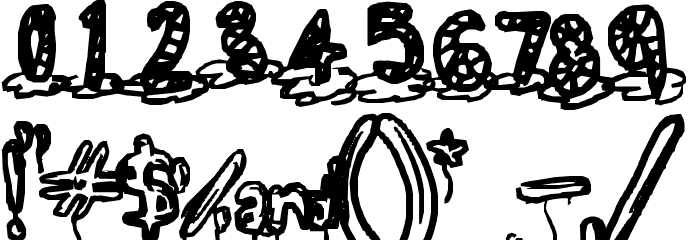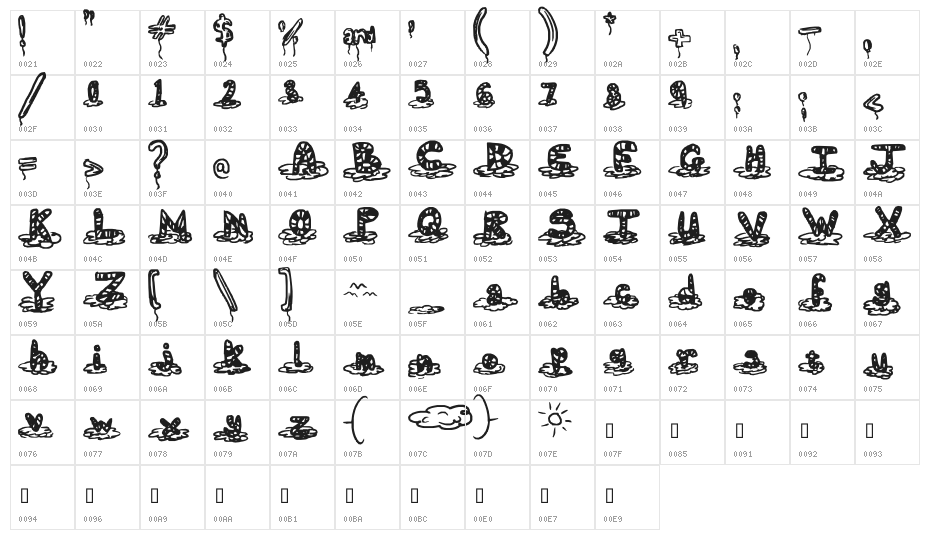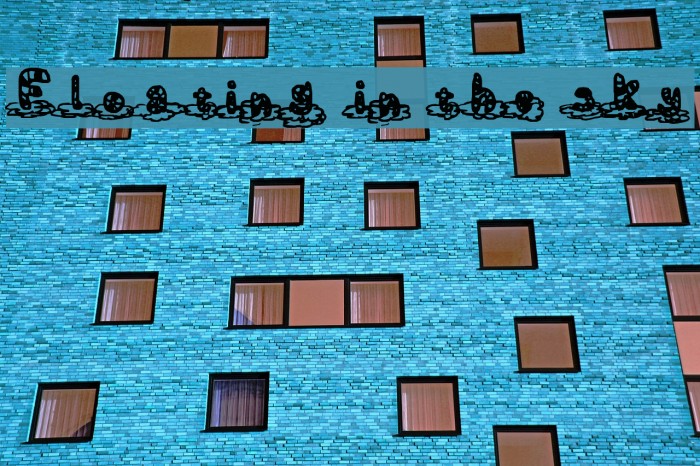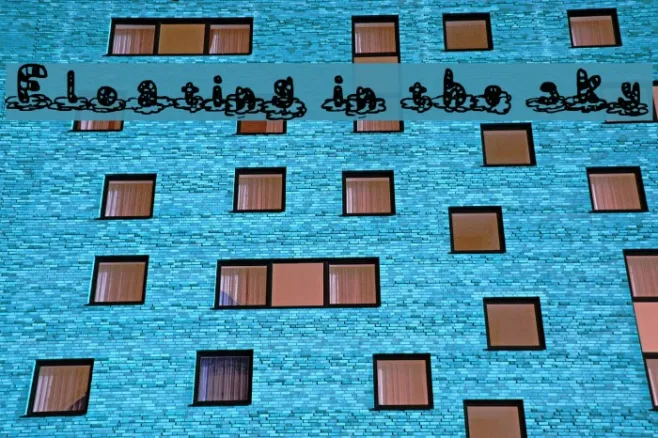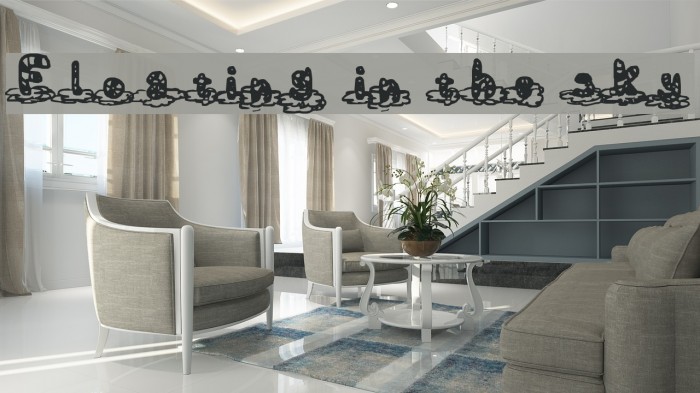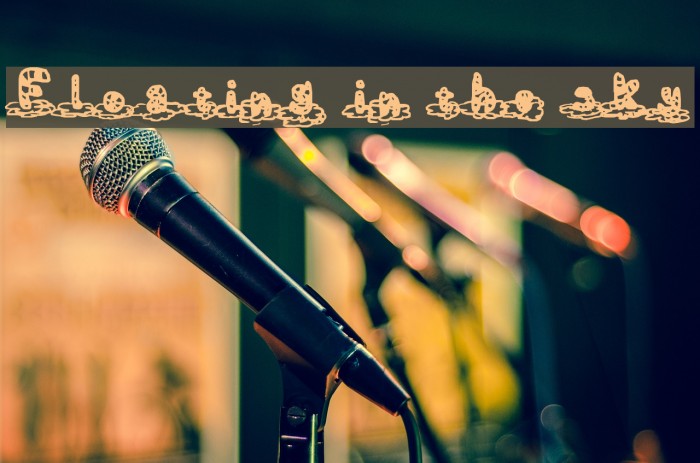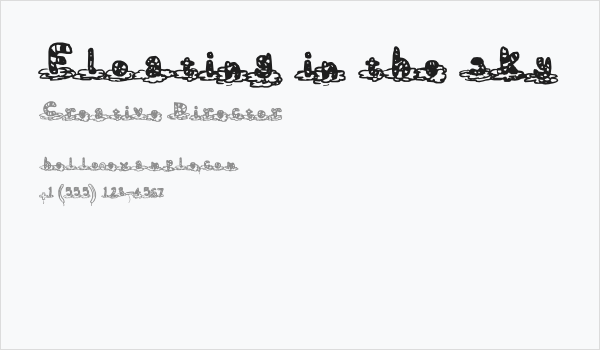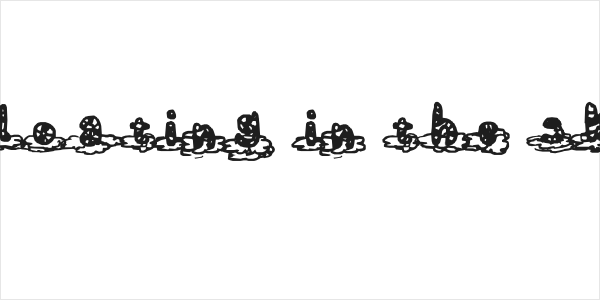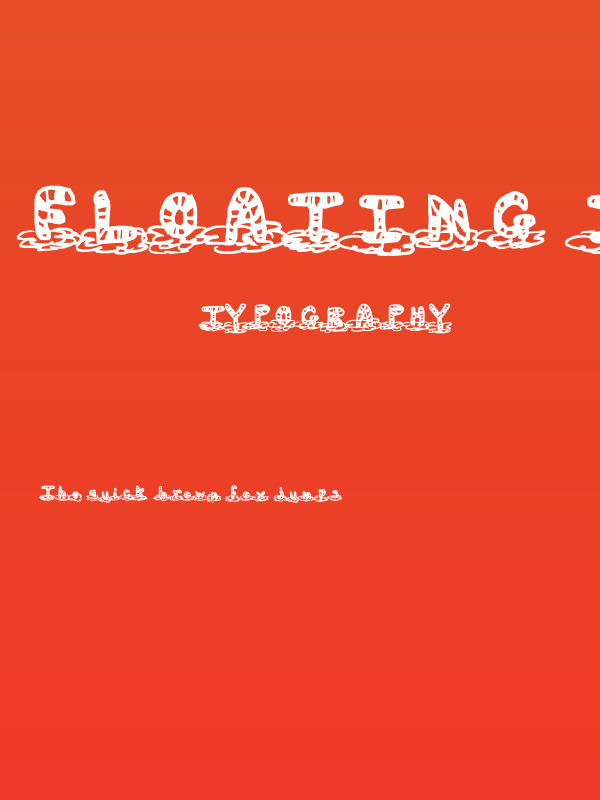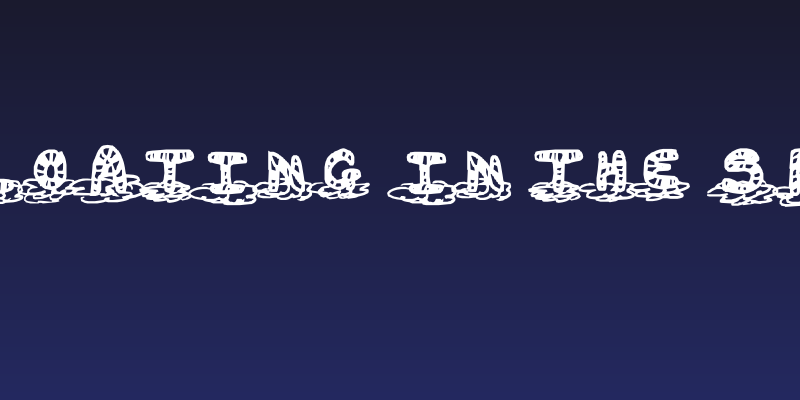
Floating in the sky Font
Floating in the sky Description
This whimsical and playful font features characters that appear to be floating on fluffy clouds, creating a dreamy and imaginative aesthetic. The letters are bold and rounded, with a cartoonish style that adds a sense of fun and creativity. Each character is uniquely designed with a cloud-like base, giving the impression of letters drifting in the sky. The numbers and special characters maintain this theme, ensuring a cohesive look throughout. This font is perfect for projects that aim to capture a lighthearted and fantastical atmosphere.